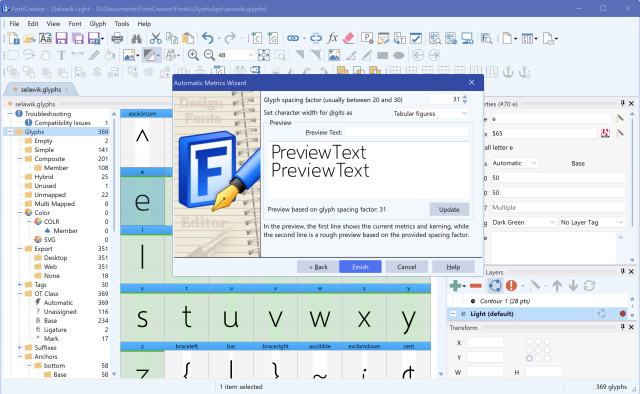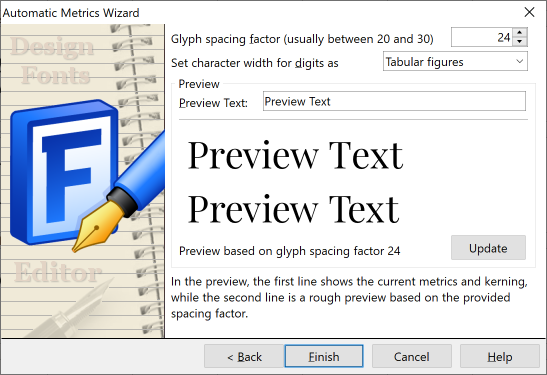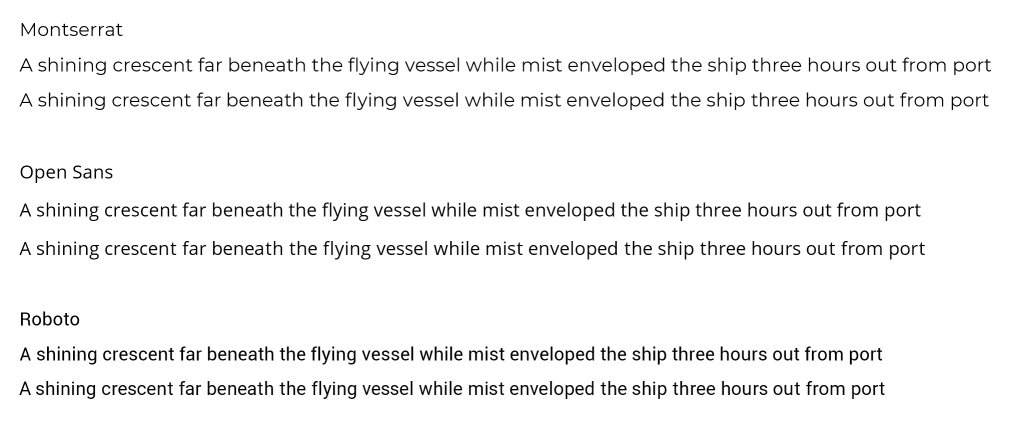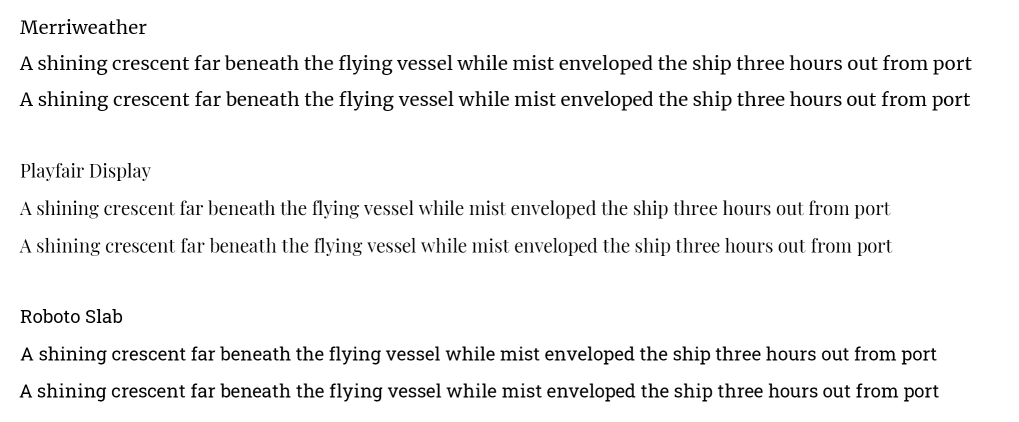
Glyph Spacing and Optical Metrics
Glyph spacing is the white space each character carries on its left and right. Get it right and your font reads cleanly at every size; get it wrong and no amount of kerning will rescue it. This tutorial shows how to use the optical metrics in FontCreator's font editor to set balanced side-bearings automatically, how spacing differs from kerning, and how to fine-tune the result by hand before you start pairing letters.
While designing your font you can add characters and glyphs without worrying too much about the metrics of each glyph. But before you consider adding kerning, you must ensure that the spacing between glyphs is optimal.
Spacing vs. kerning — what's the difference
These two terms get mixed up constantly, so it helps to separate them before you touch any controls.
• Spacing (side-bearings) is per-glyph. Every glyph has a left side-bearing and a right side-bearing — the gap built into the glyph itself. Spacing answers the question "how much room does this single letter need around it, regardless of its neighbours?"
• Kerning is per-pair. It is a correction applied only to specific letter combinations that look too tight or too loose even after spacing is correct — classic examples are "AV", "To", and "Yo".
The order matters: space before you kern. Kerning is meant to fix the handful of pairs that good spacing can't, not to paper over spacing that was never set. If you kern first, you end up creating hundreds of pairs to compensate for poor side-bearings — and you'll have to redo them all the moment you fix the spacing underneath.
> Note: Side-bearings live on the glyph and apply everywhere it appears. Kerning lives in the font's OpenType layout data and applies only between two named glyphs. Two completely separate mechanisms.
Set spacing automatically with Auto Metrics
A font editor usually has several ways to adjust the side-bearings of each glyph, but FontCreator lets you generate those metrics for your Latin characters with optical precision. The Automatic Metrics wizard measures the actual shape of each glyph and works out how much space it should carry on each side so that, optically, the rhythm of the text looks even.
To run it:
1. Open the font you want to space.
2. From the main menu, choose Tools → AutoMetrics to open the Automatic Metrics wizard.
3. Choose the Optical Metrics option to generate the best optical space before and after each character.
4. Set the Glyph spacing factor. This is a global distance factor — a larger factor results in more spacing between glyphs, a smaller factor tightens everything up. Start with the default, preview, and adjust.
5. Apply the wizard and review the result in the Font Overview panel and in a sample text preview.
You might need to try different glyph spacing factors to find the overall density you want — that single value scales the whole font's rhythm at once.
FontCreator Automatic Metrics wizard with Optical Metrics chosen and the glyph spacing factor input highlighted.
The Automatic Metrics wizard open over the Font Overview, showing the Optical Metrics option selected and the Glyph spacing factor field.
What optical metrics actually does
To show the power of this feature, here are a couple of popular fonts spaced with it. In each example the first line is the original font and the second line is the same font after running Optical Metrics — both at font size 14, with kerning switched off so it can't override the spacing.
Lines of a sans serif font with original side-bearings
Sans serif original spacing, font size 16.
Lines of serif text with optically generated spacing
Sans serif optical metrics, font size 16.
With serif fonts you'll notice optical metrics finds it harder to calculate good values for glyphs with bowls — combinations such as "be", "pe", and "po". These are the spots most worth checking by hand afterwards.
Optical metrics takes less than a minute per font. That's a good return when you realise glyph spacing is considered as important as the design of the glyph outlines. Font designers can do without it, but they usually spend numerous hours trying to find a good balance manually. Perfect spacing between glyphs makes a font stand out — and it avoids unnecessary kerning pairs later.
> Tip: Run Auto Metrics on a copy of your font first, compare it against the original in a sample string, and only keep the result if it reads better. The wizard is a starting point, not a verdict.
A "space before you kern" workflow
Here is the order that saves the most rework:
1. Draw the glyphs. Don't fuss over side-bearings while the shapes are still changing.
Next: kerning
Once your side-bearings give the font an even rhythm, you're ready for the second half of the spacing job: kerning the handful of pairs that good spacing still can't fix — the "AV", "To" and "Wa" of the world. That's a topic in its own right, covered in Kerning & Autokerning a Font. Get the spacing solid here first; kerning on top of well-set side-bearings is a short, satisfying list of exceptions rather than a font-wide rescue job.